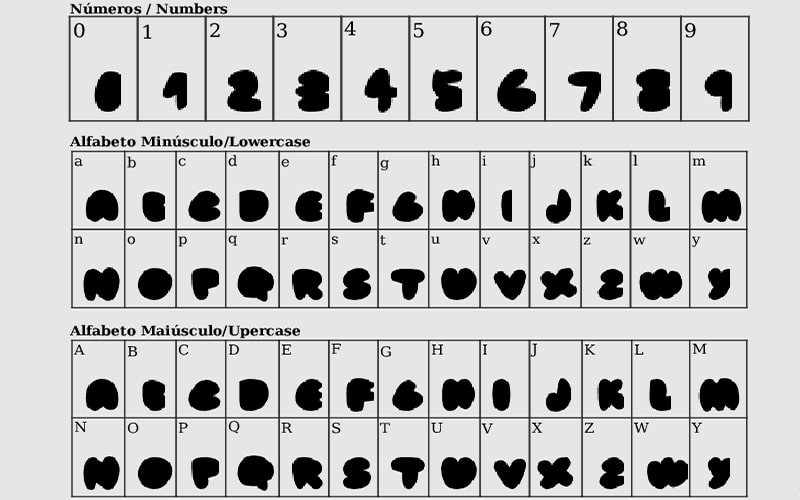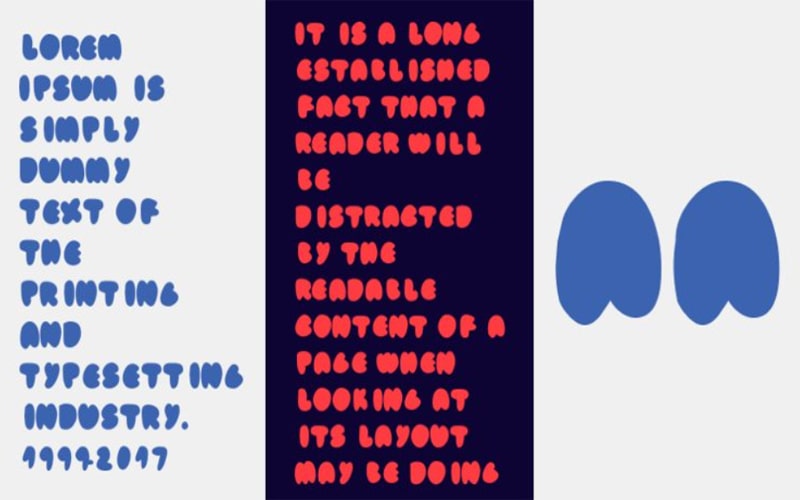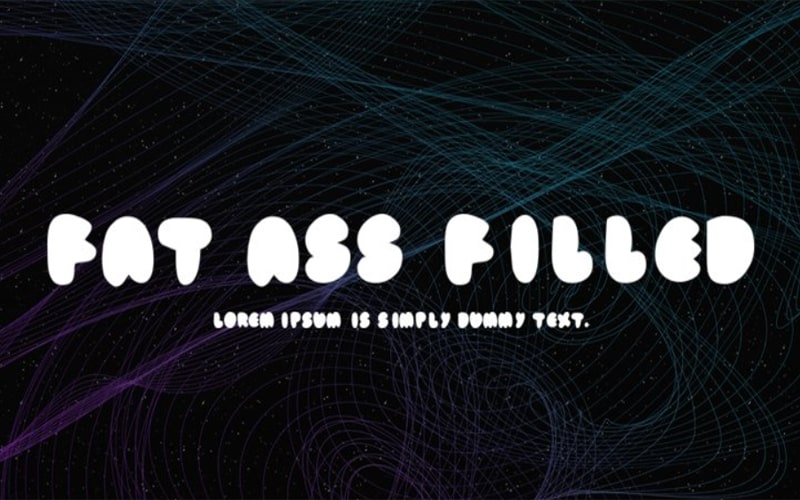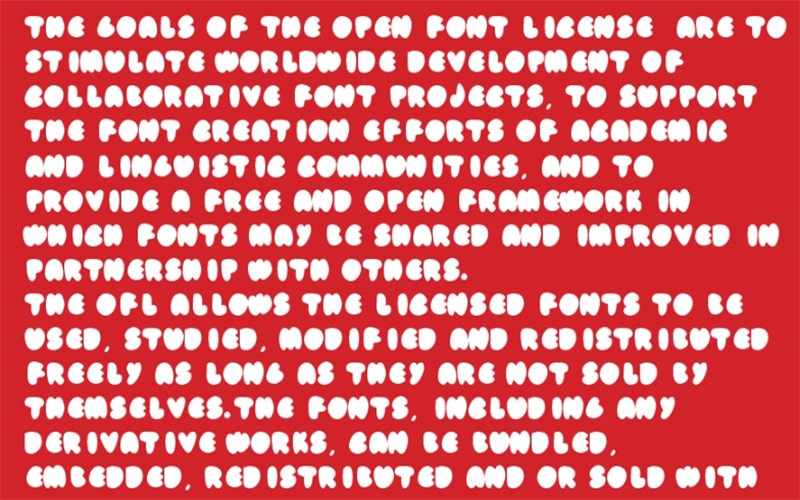
Fat Ass Filled Font is a Comic, Cartoon, Fancy typeface that was published by Putis Mayer for the first time in the year 2007.
You can use this perfect and beautiful bold font for your branding projects, creating interesting designs, covers, shops name, store names, and logos.
It is also the perfect font for the set as stylish text overly for any background image and for product packaging. This amazing look spread around all over the world.
Fat Ass Filled Font
| Style: | Fancy, Cartoon, Comic, Typeface |
That 2-weighted font has 113 defined no. of characters. It also supports 2 languages such as English and Zulu.
Fat Ass Filled Font has 82 defined characters set which includes 26 lowercase, 26 uppercase letters with 10 numbers. There are also 20 special characters.